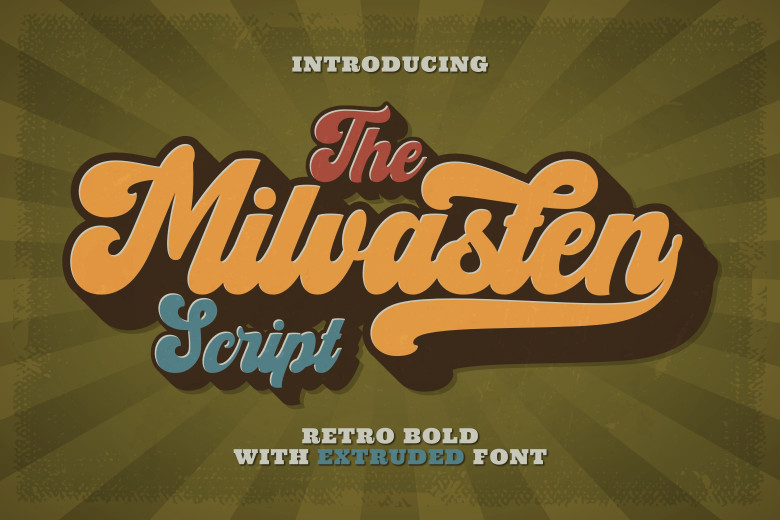
Milvasten Font
Milvasten is an elegant retro-inspired script display font ready to elevate your designs to new heights. Add it to retro stickers, posters and apparel as well as social media posts for maximum effect – it even comes PUA encoded for ease of accessing all characters and washes!
Milvasten Retro Script Font